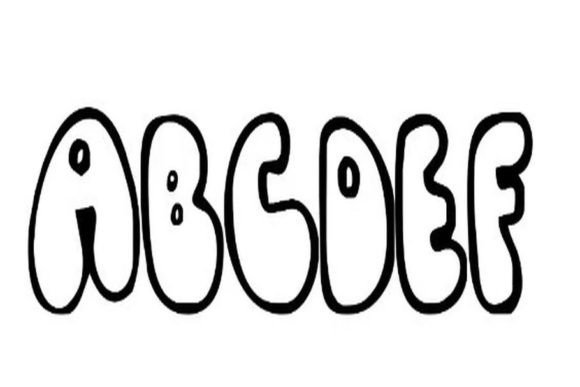
Introduction to Bobolha Font
Bobolha is a cute and quirky display font.
It will add an incredibly joyful touch to your designs Add this beautiful display font to each of your creative ideas and notice how it makes them stand out.
Key Features of Bobolha Font
Why Choose Bobolha Font?